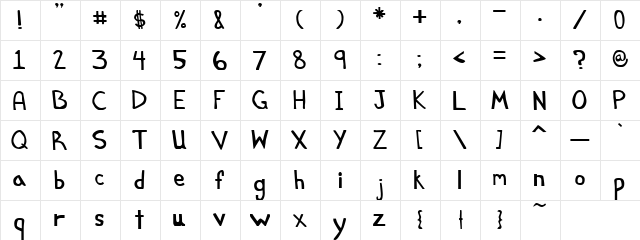
Misfit of Sorts Regular
Design Context for Misfit of Sorts Typeface
Misfit of Sorts is a composed and adaptable typeface that performs quietly and consistently across a wide range of design contexts.